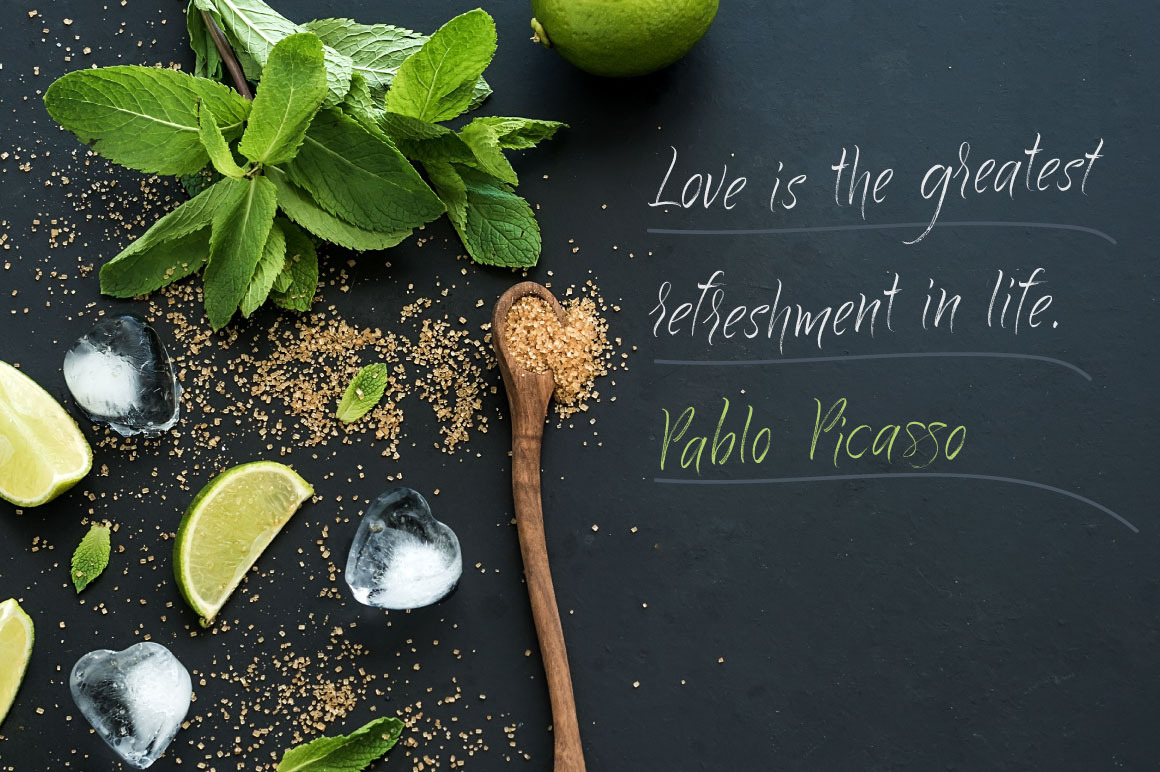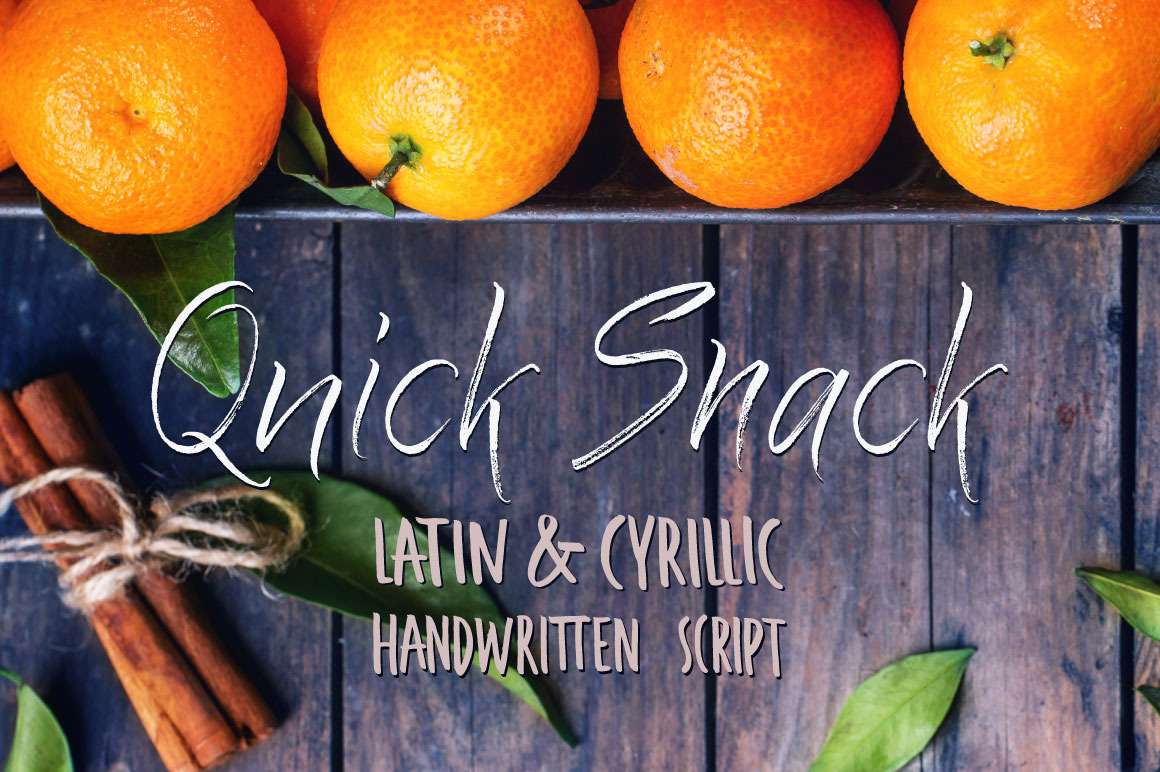
Quick Snack Script Latin & Cyrillic Font
Quick Snack Script Latin & Cyrillic is a bright and charming modern calligraphy typeface, perfect for designs that need a friendly and playful touch. Its smooth, handwritten style and delightful ligatures make it an excellent choice for branding for cafes, food packaging, and fun social media content. The font’s natural flow and legibility also make it ideal for invitations, greeting cards, and lifestyle blogs where a personal and warm aesthetic is desired. With its comprehensive support for both Latin and Cyrillic alphabets, Quick Snack Script is a versatile tool for multilingual projects.
What makes Quick Snack Script so exciting is its ability to convey a sense of joy and spontaneity. Each character feels carefully crafted, yet maintains a breezy, casual quality that is instantly appealing. This combination of polished design and a relaxed feel makes it perfect for a wide range of applications, from cheerful children's book titles to stylish product packaging. It’s a typeface that brings a smile to the viewer’s face, creating an emotional connection that more rigid fonts can’t match.
The Quick Snack Script font family offers a selection of weights and styles to give you creative freedom. It typically includes a Regular weight, and sometimes a Bold or Slanted version, along with an impressive set of ligatures and alternative characters. These features are essential for making your text look truly custom and handwritten, as they prevent repetitive letterforms and ensure a natural, flowing rhythm.